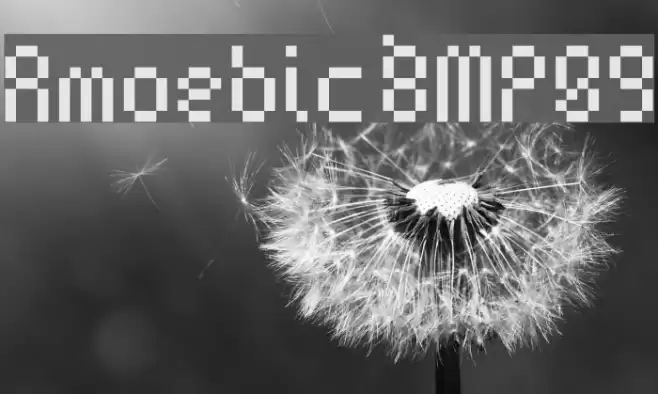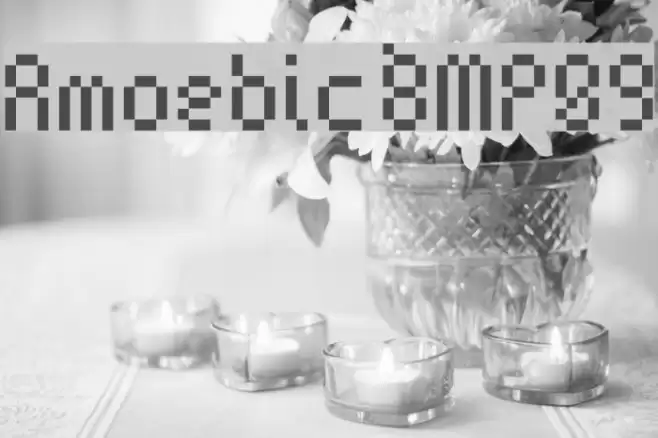
Amoebic BMP09 Font
Amoebic BMP09 Description
This font is a pixelated, grid-based typeface that evokes a retro, digital aesthetic reminiscent of early computer graphics and video games. Each character is composed of a series of square blocks, creating a uniform and consistent appearance across all letters and symbols. The uppercase and lowercase letters maintain a similar height, contributing to a cohesive look. The numerals and special characters are designed with the same pixelated style, ensuring visual harmony. This font's simplicity and geometric nature make it ideal for projects that require a nostalgic or tech-inspired feel.
A pixelated, retro-style font with a uniform, grid-based design from Uncategorized fonts.
- Proposed Projects: Ideal for video game design, digital art projects, retro-themed websites, and tech-inspired branding.
- Overall Style: Retro, Digital
- Use Case: Logos, Headlines, Digital Art